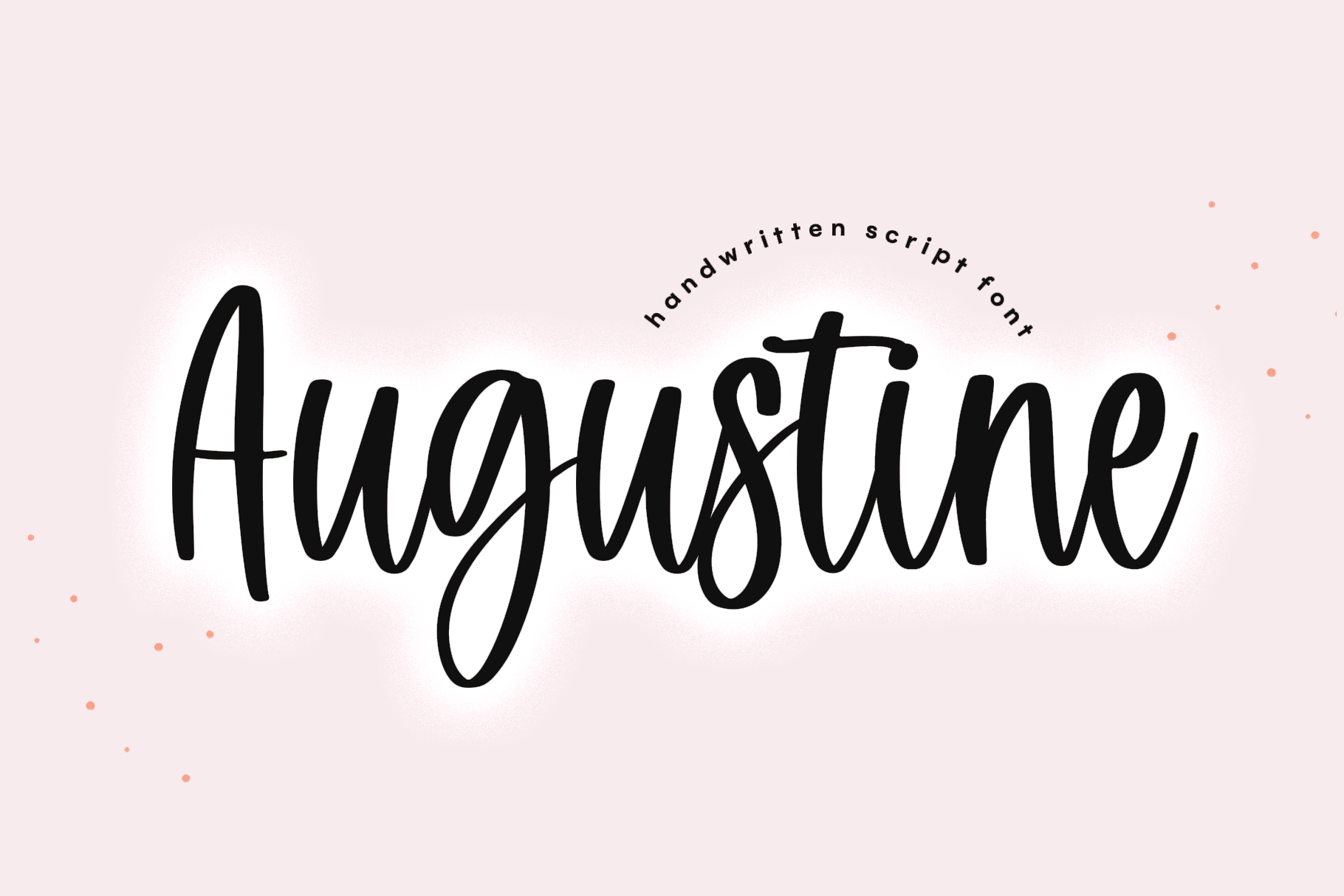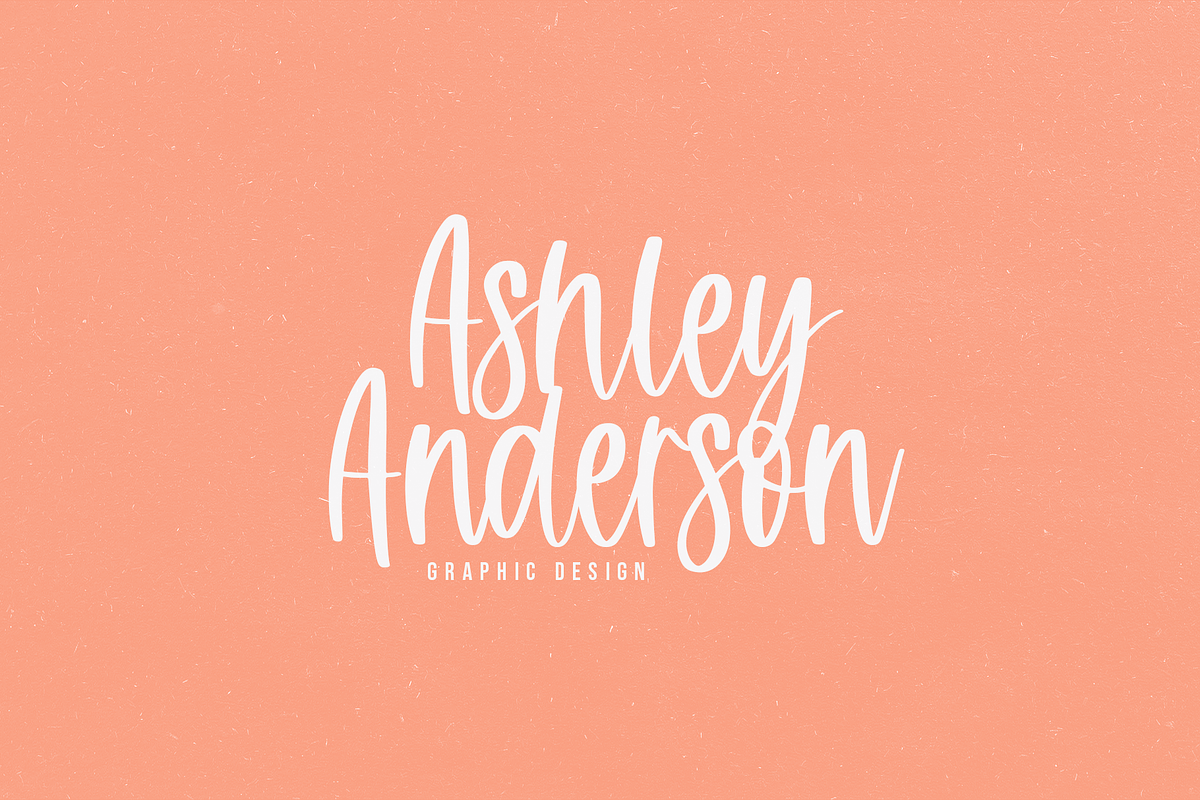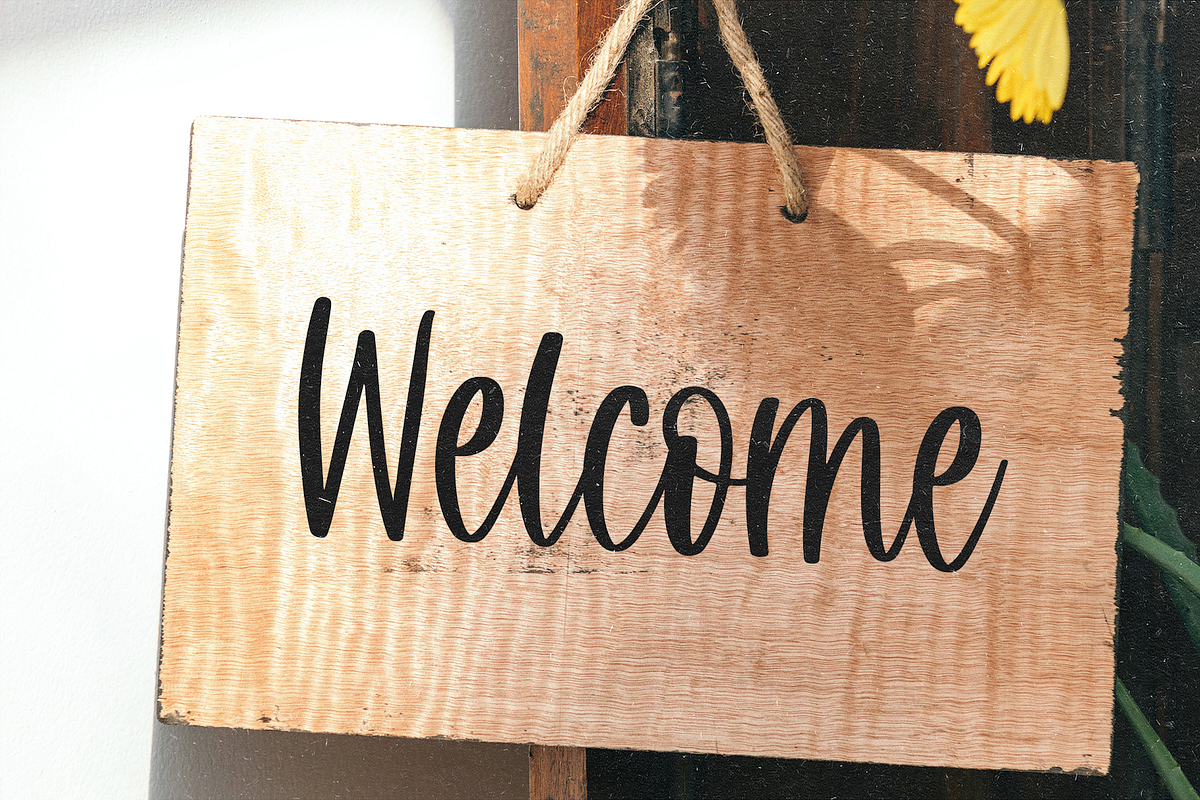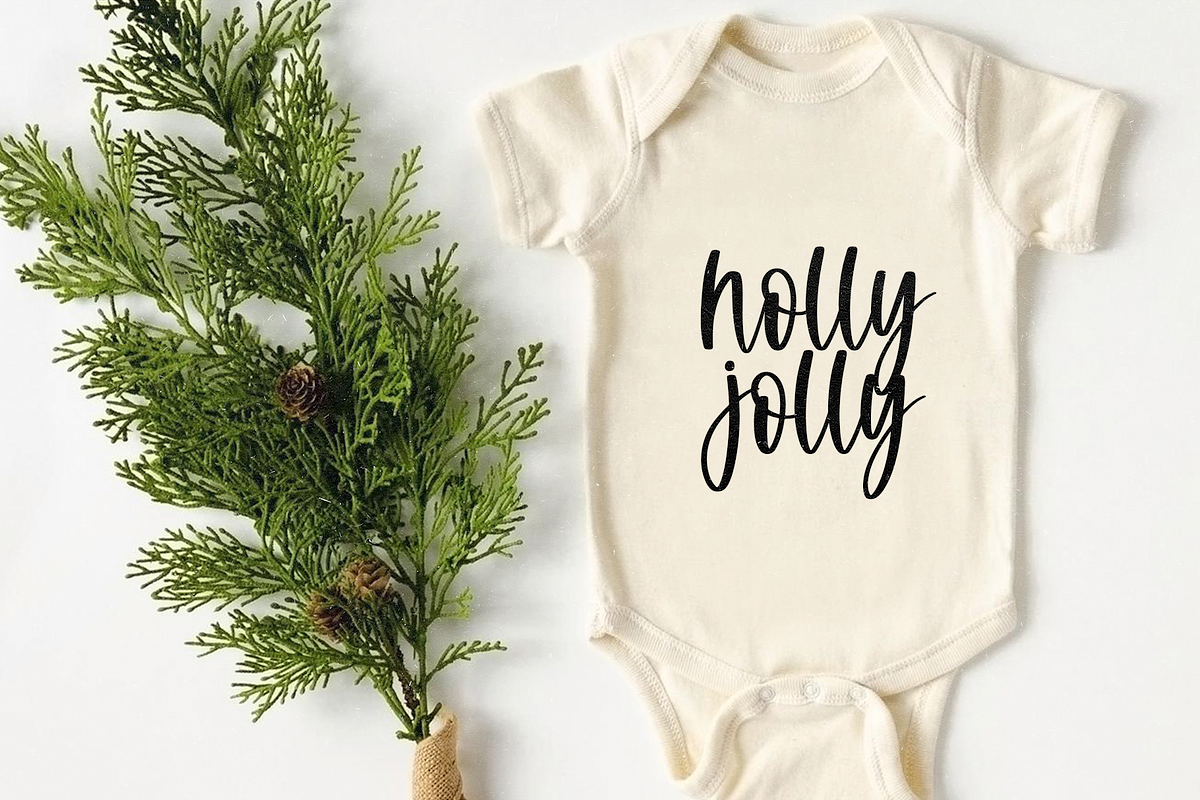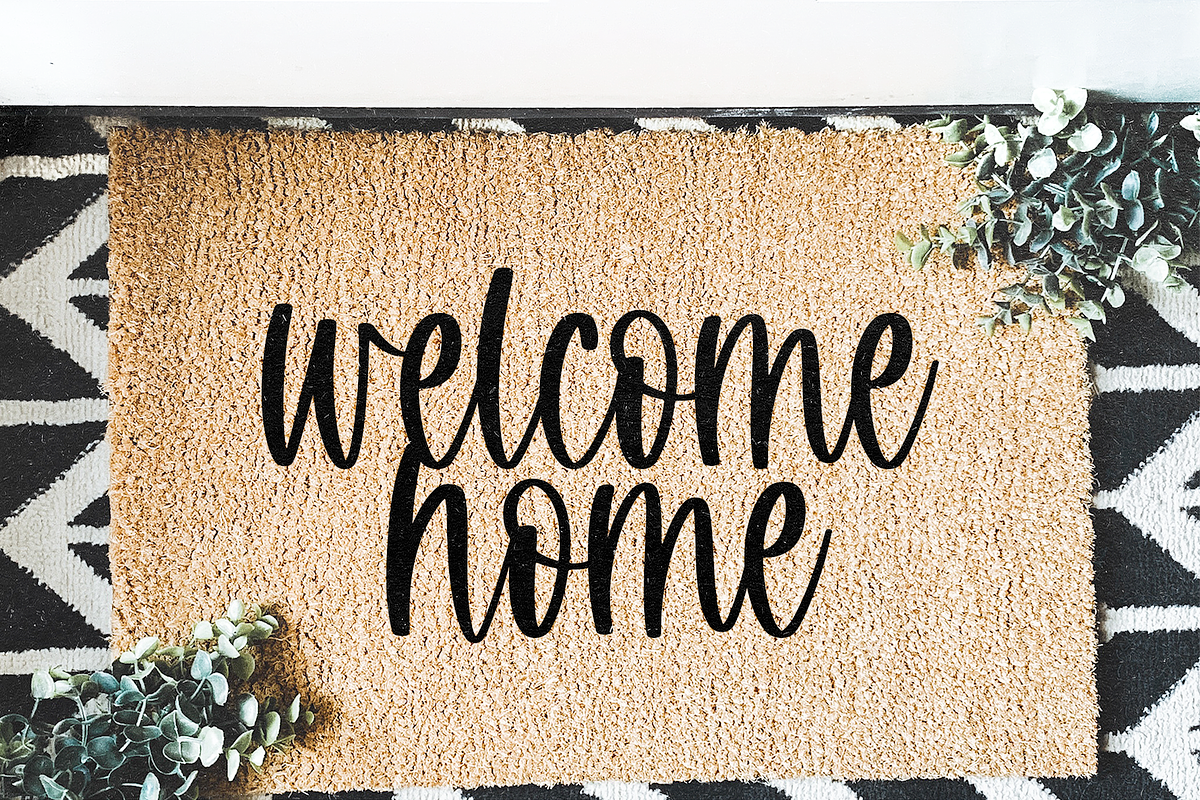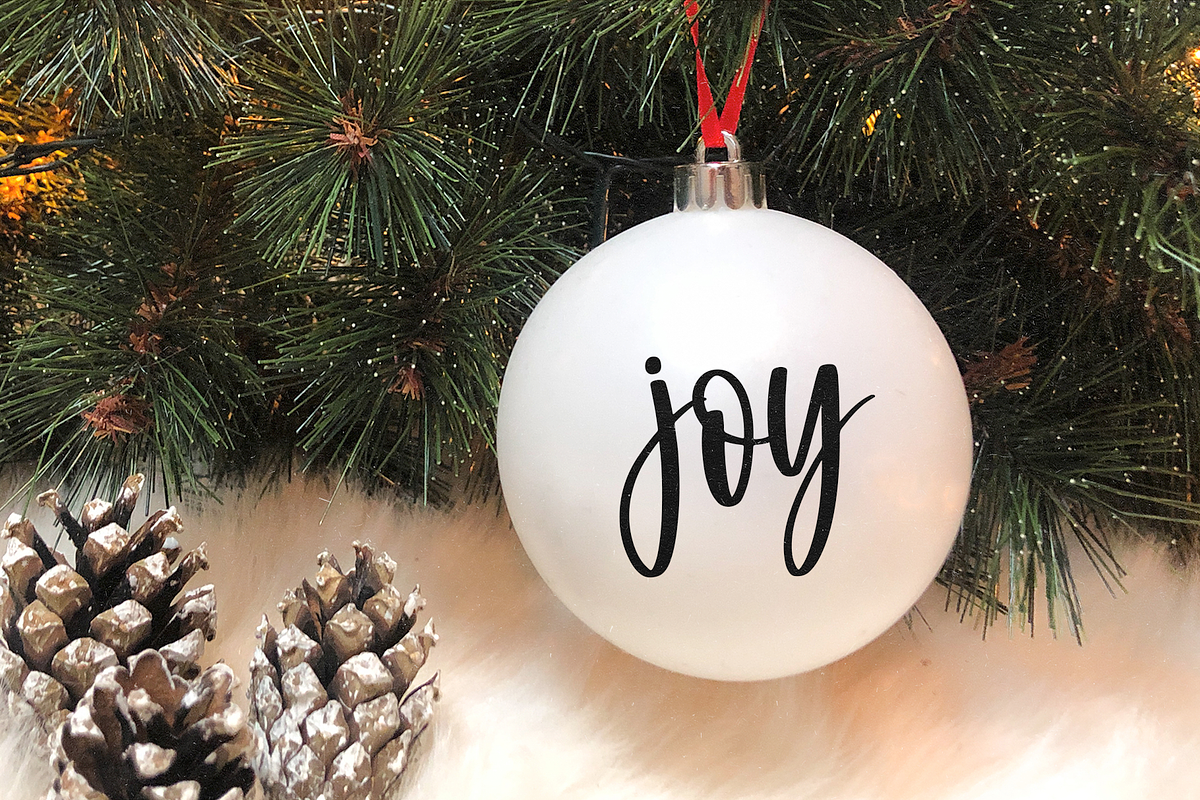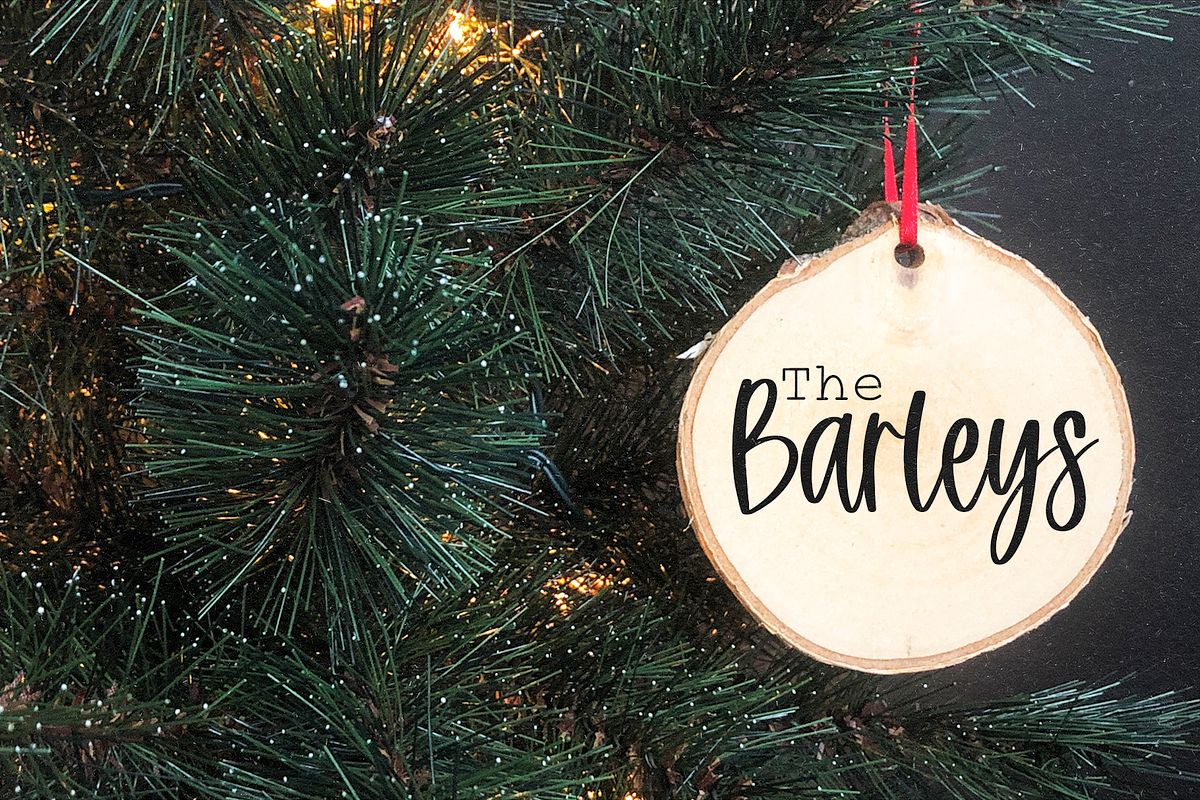
Augustine | Handwritten Script Font
Augustine is a handwritten script font.
This font is perfect for all of your craft projects, signs, svg designs, cricut projects, branding, logos, social media and more!
Most accents included.